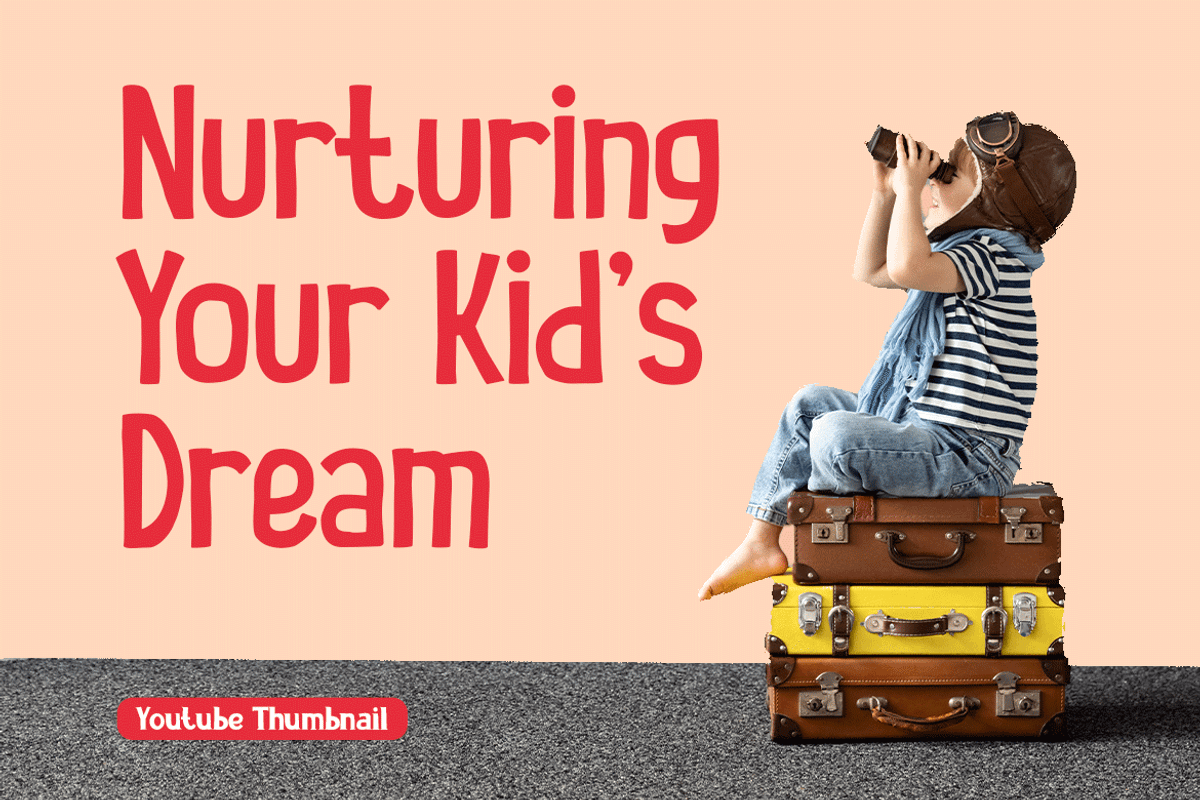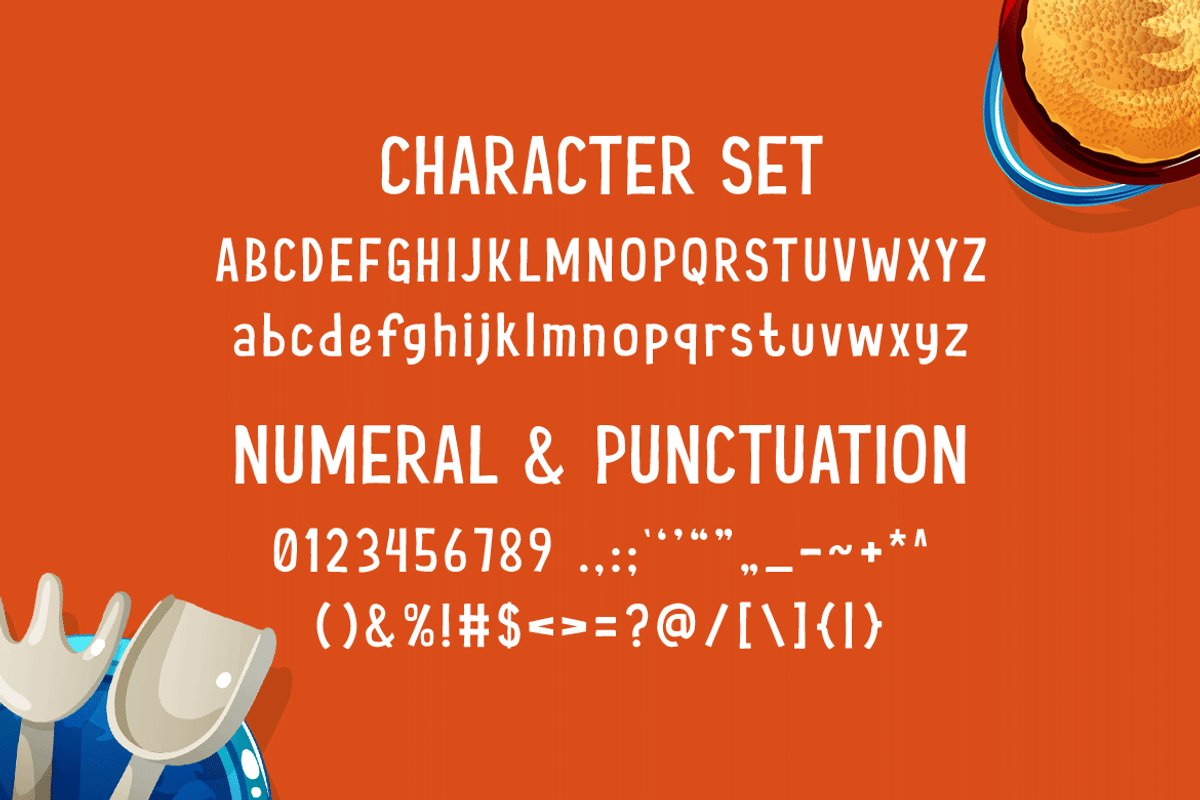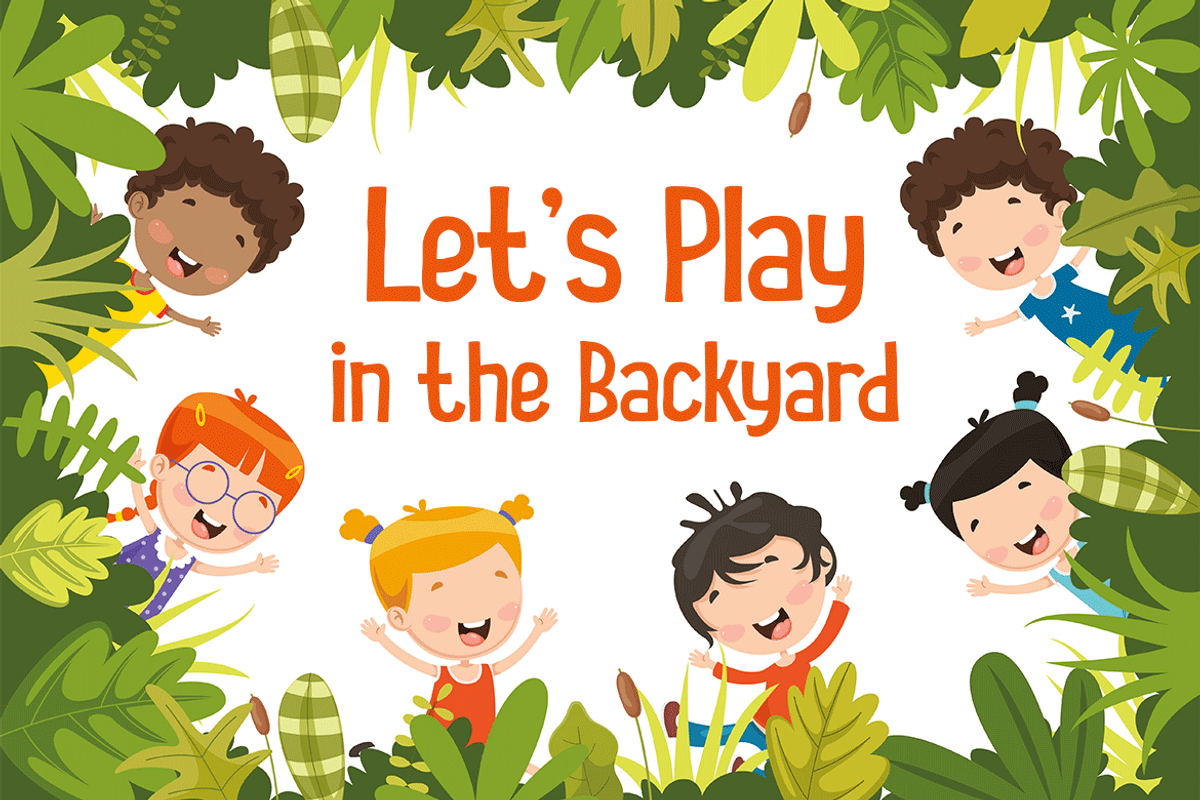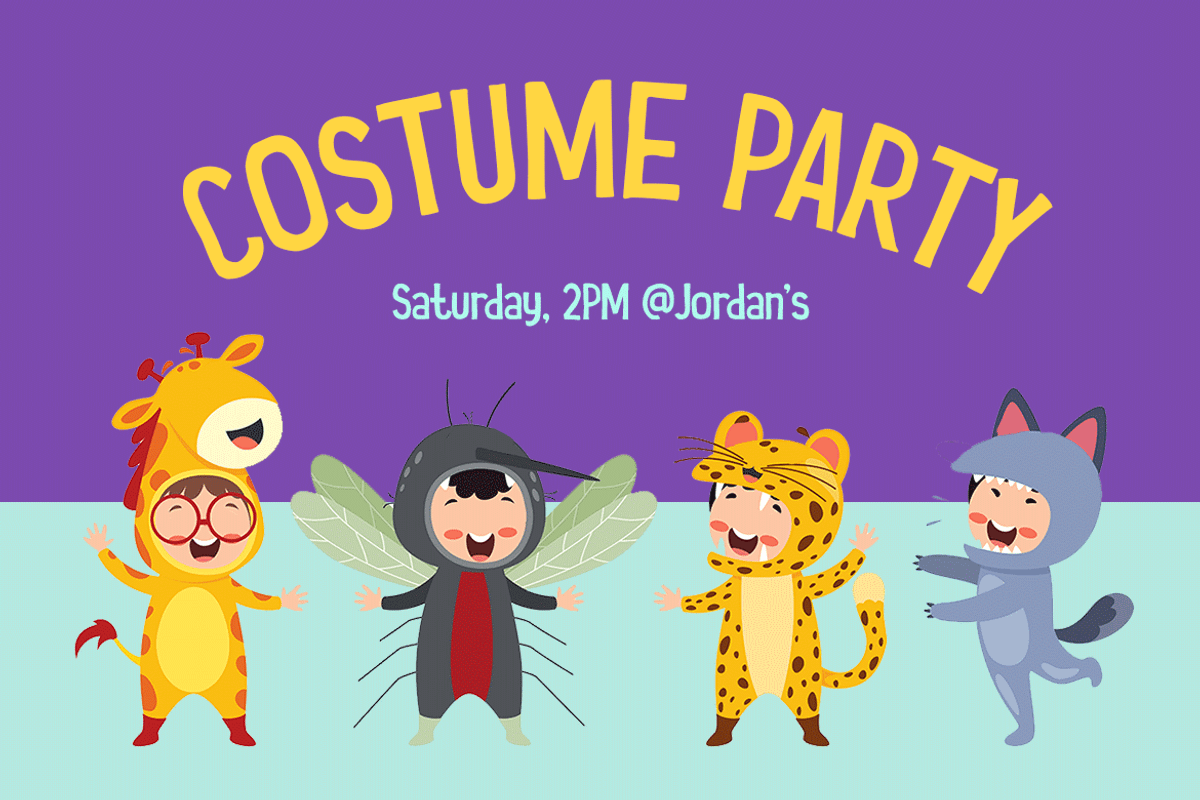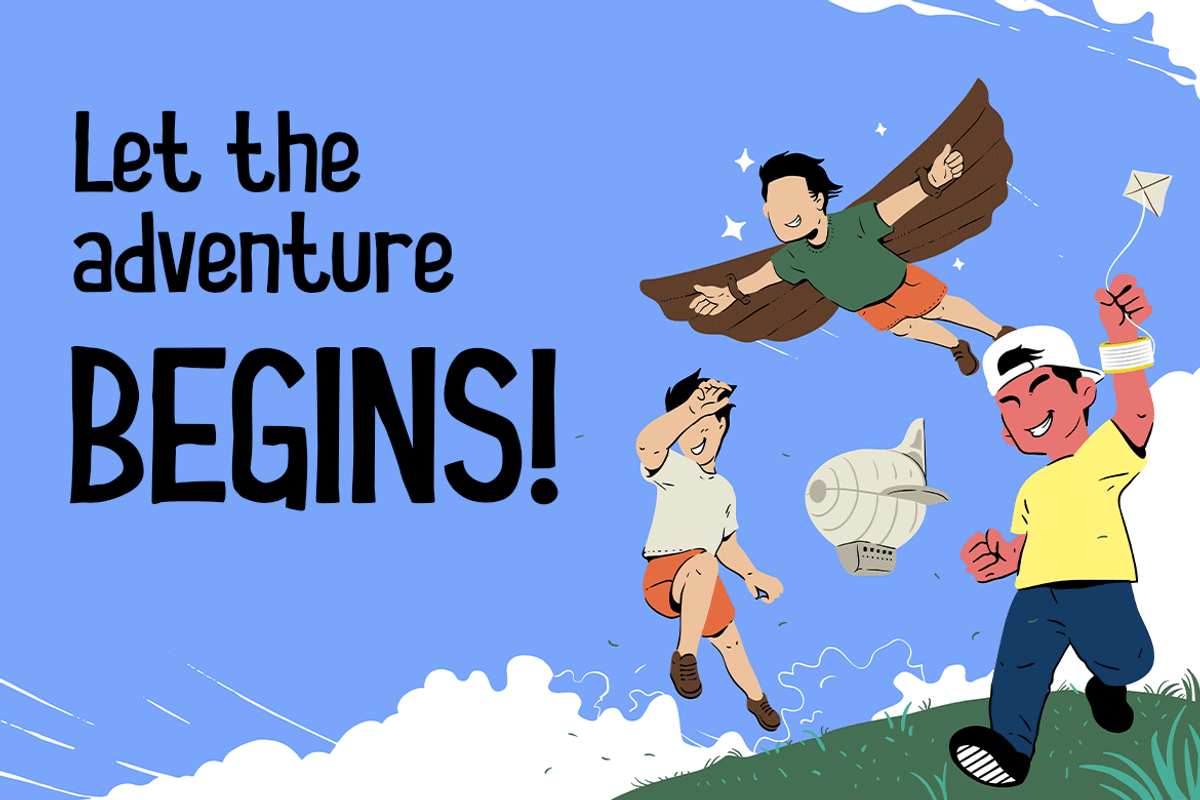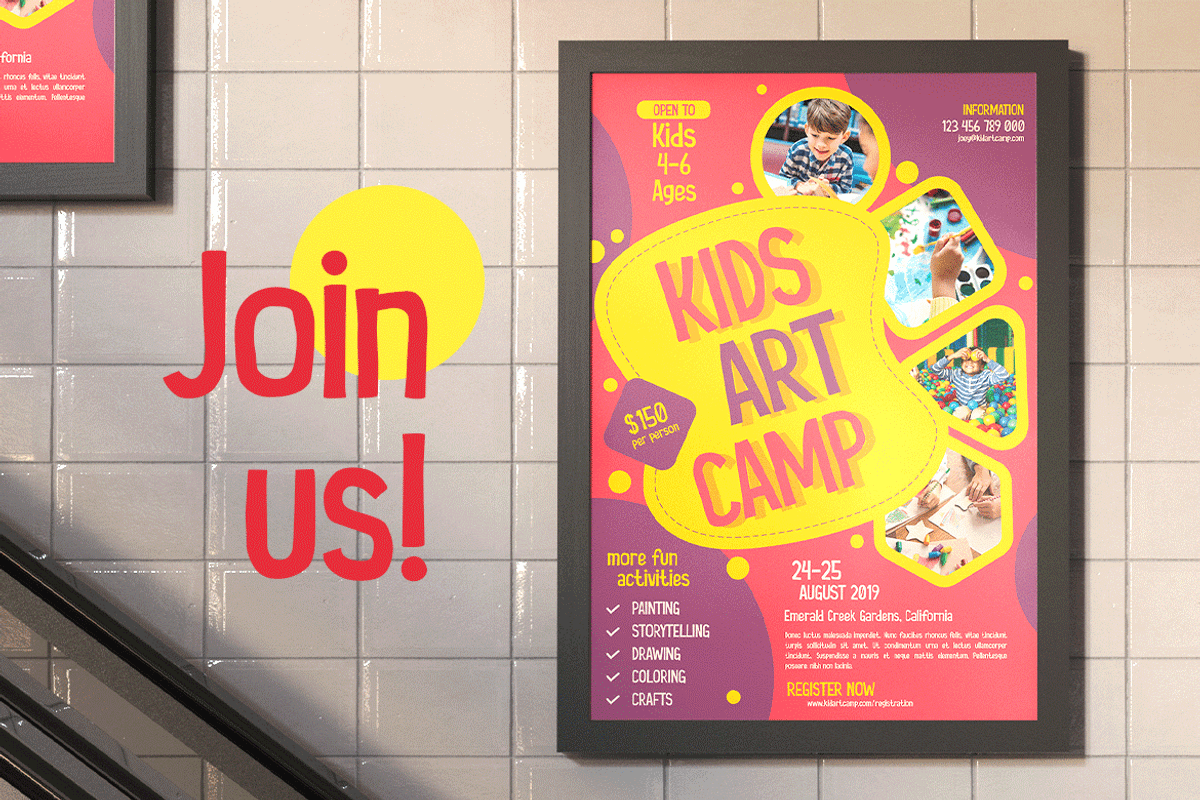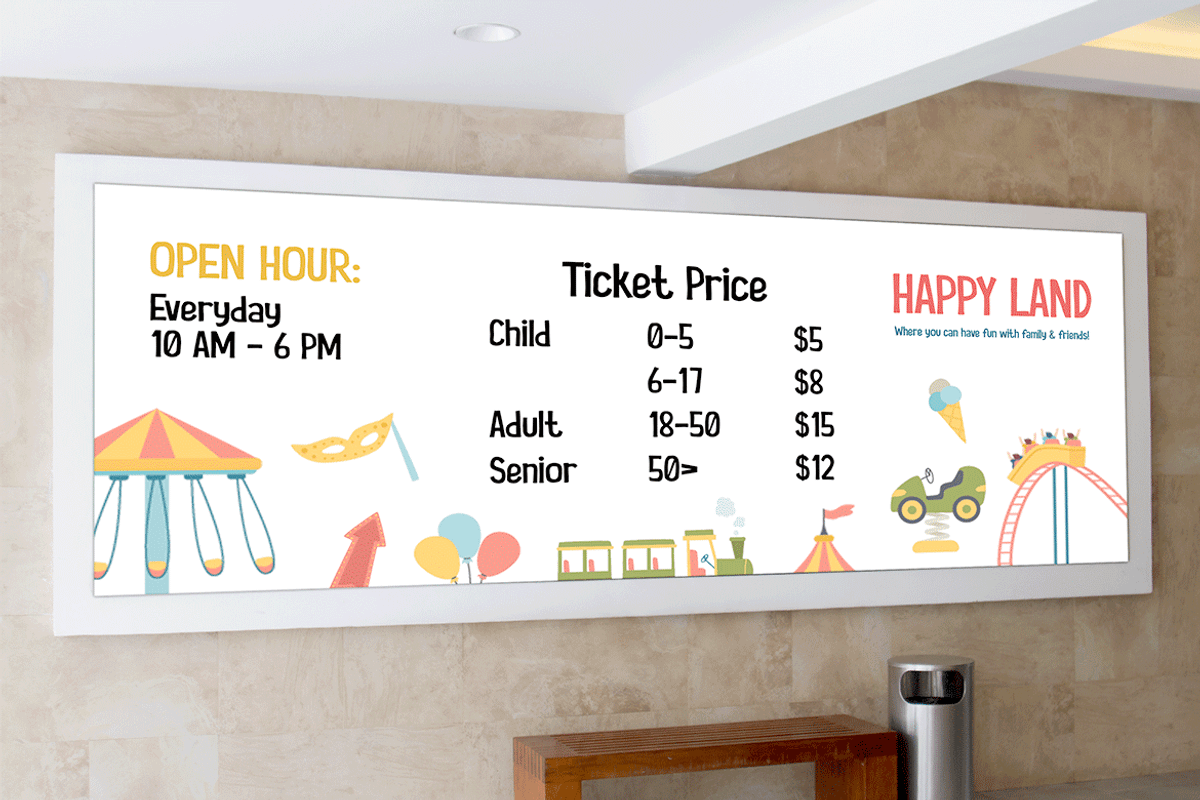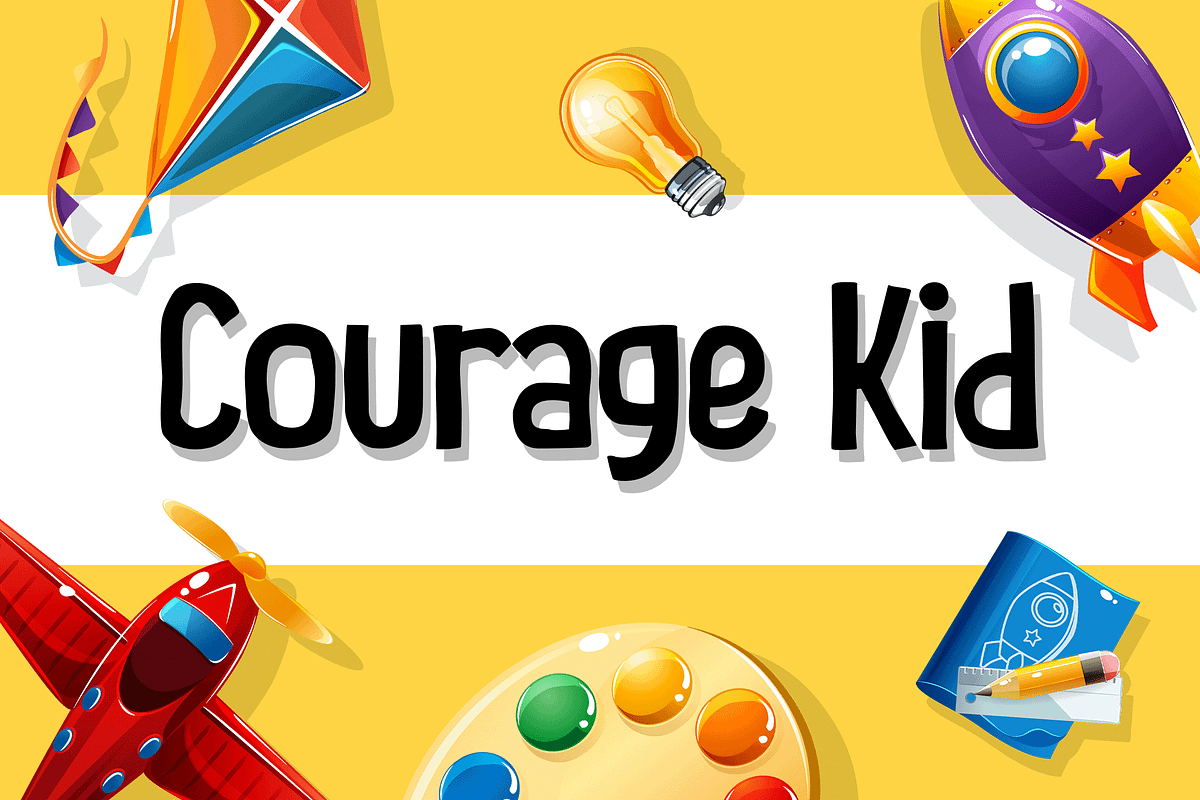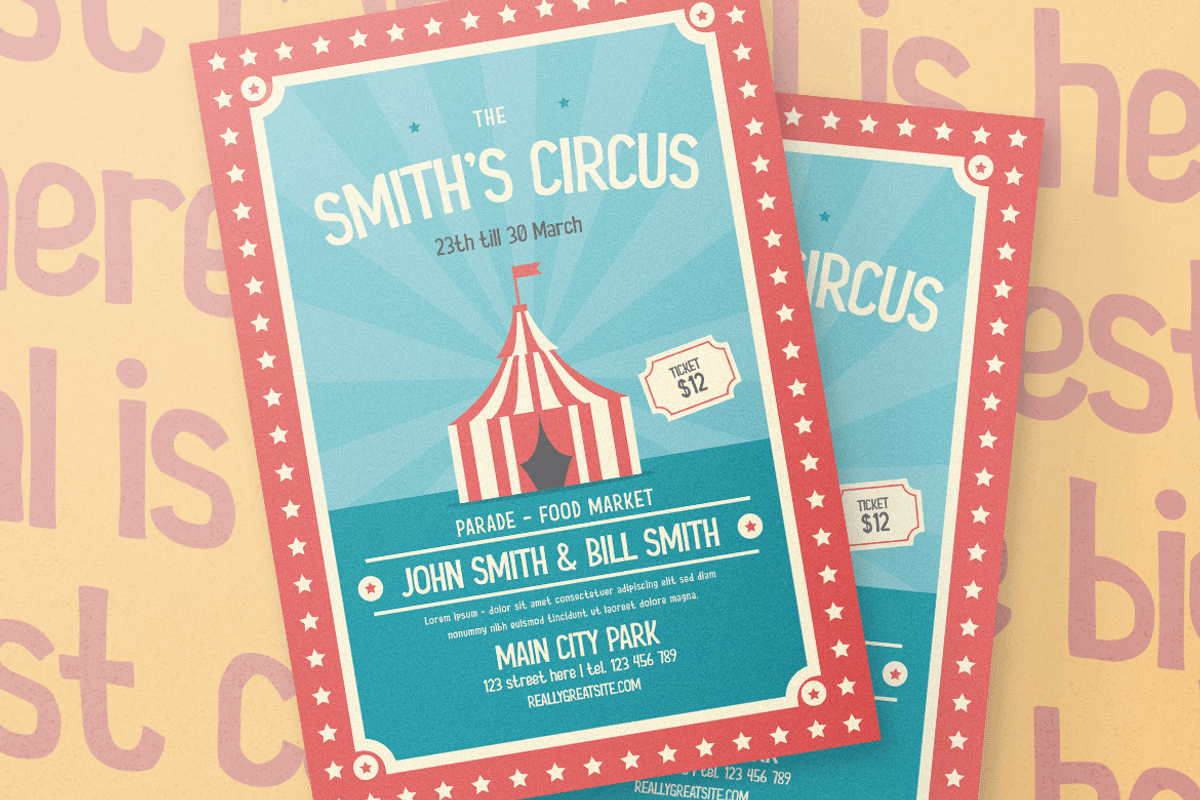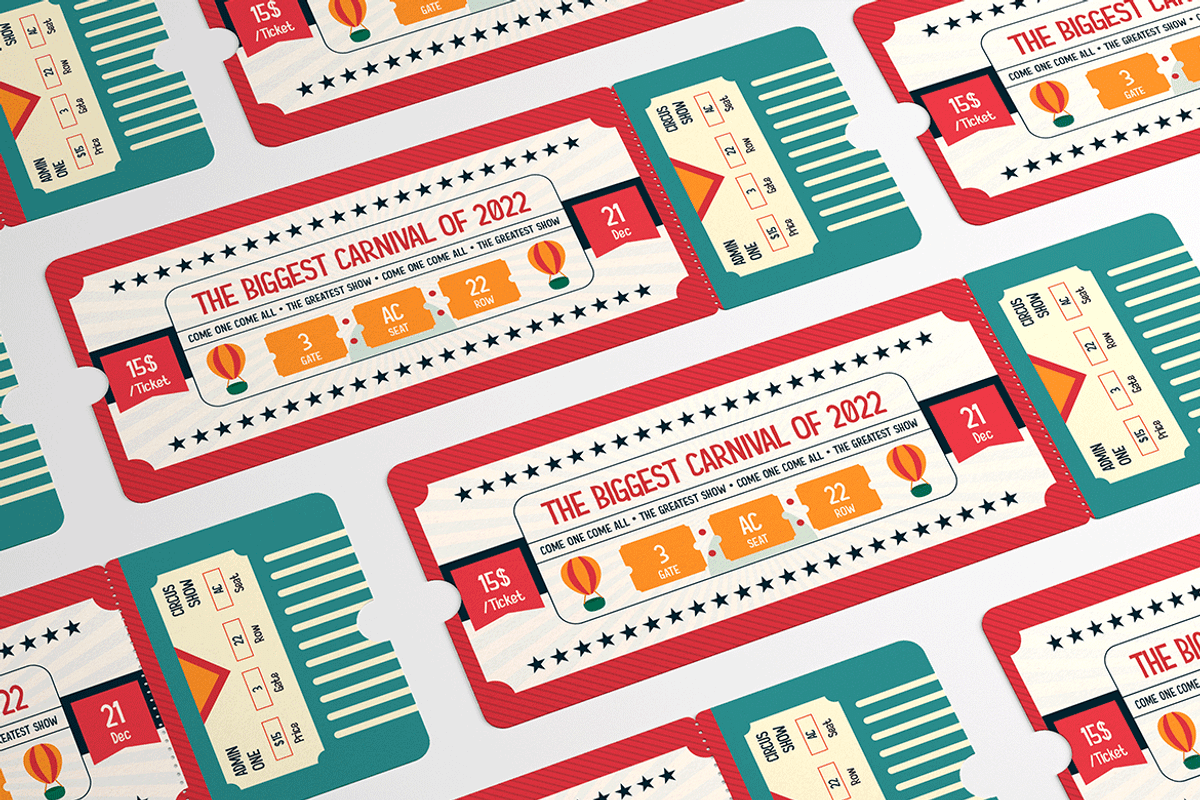
Courage Kid - Fun Kids Font
Courage Kid – Kids Font
Playing with kids, is like playing with never ending excitement, they all full of joy and courage to explore the world they are facing. Hence, the Courage Kid are made. The imperfect lines that build the letters, is a perfect examples of the development they had in life.
Suit perfect for kids books market, online games, event posters, school supplies font, posters, movie titles, youtube covers, youtube thumbnails, social media page covers, and so on...